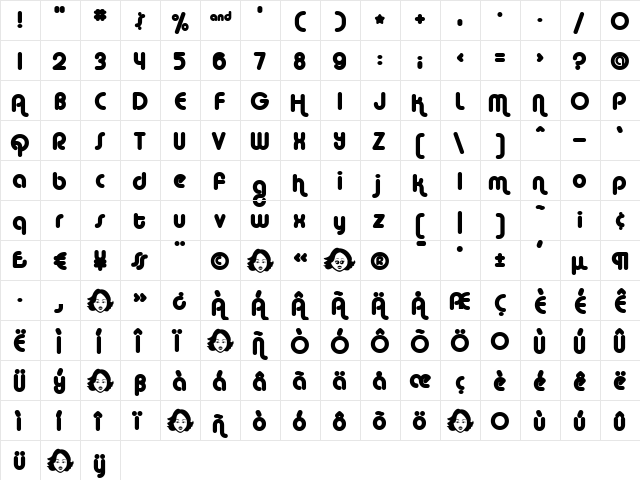
Alba Matter Regular Font Preview
Alba Matter Regular
Alba Matter Regular Font Details
Design Context for Alba Matter Typeface
Alba Matter is a composed and adaptable typeface that performs quietly and consistently across a wide range of design contexts.